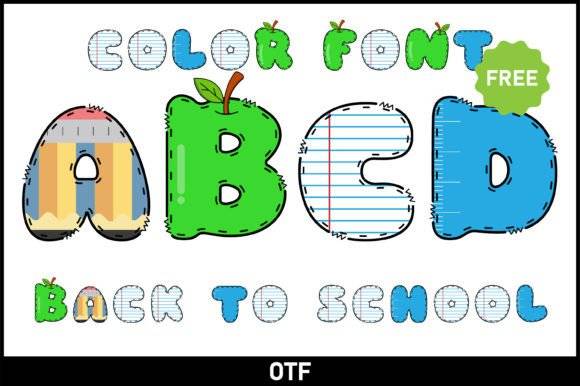
Back to School Font for Cricut, Silhouette and Printable Designs
Back to School is a cheerful and approachable font created to capture the spirit of education and creativity. Ideal for cutting machines and printable projects, it adds a fun, scholastic touch to classroom signs, student gifts, and educational printables. Its playful design makes it a versatile choice for various crafting projects, from personalized notebooks to decorative banners. For those new to crafting, exploring basic font tips for Cricut designs can enhance the overall aesthetic and usability of your projects. Whether you're designing for a classroom or a themed party, this font can elevate your creations and inspire creativity. Whether you're designing inspirational posters or personalized notebooks, this font enhances your project with a lighthearted flair. Additionally, for those looking to elevate their crafting game, the backstage pass font for crafts brings a unique element that pairs wonderfully with Back to School, making any creation stand out even more. With its versatile style, this font will inspire creativity in both students and teachers alike.
Whether you're decorating for the school year, crafting personalized teacher items, or making student reward tags, this font delivers personality with clean, cut-ready lines.
- Printable worksheets and reward charts
- Classroom door signs and labels
- Custom t-shirts and tote bags
- Vinyl decals for school supplies
- Back-to-school party decorations
- Perfectly suited for school-themed projects
- Optimized for Cricut and Silhouette machines
- Clear, friendly design for easy readability
- Ready for both vinyl and printable projects
Q: Can I use this font for printable classroom materials?
A: Absolutely. It's great for worksheets, charts, signs, and more.
Q: Will this font cut cleanly with vinyl?
A: Yes. Its bold, clear shapes make it perfect for vinyl cutting and other material applications.